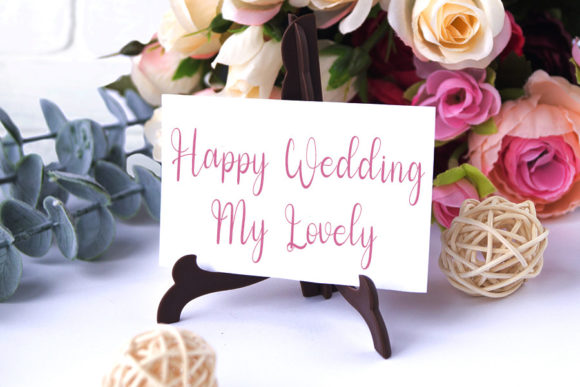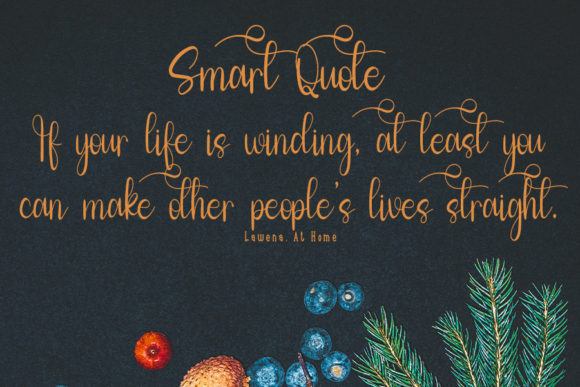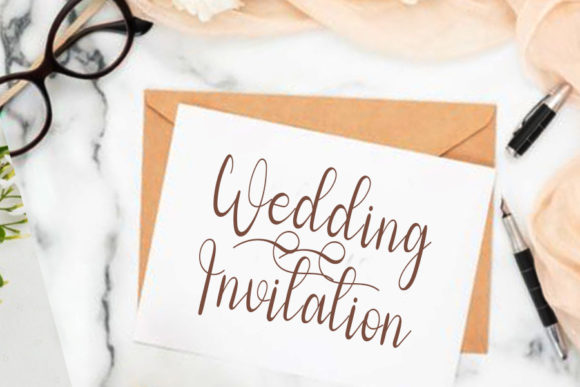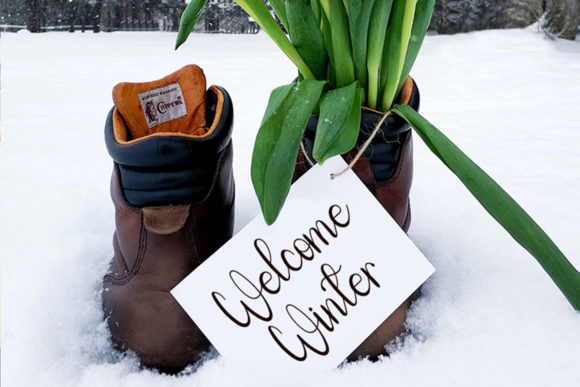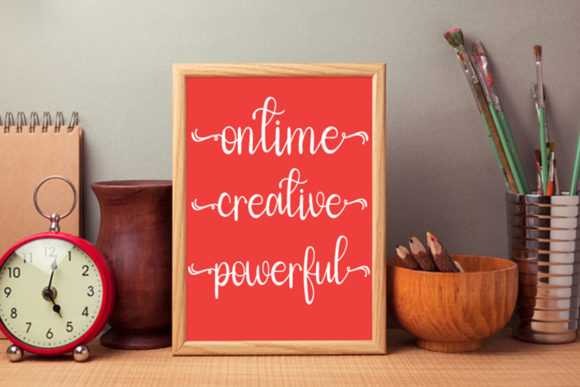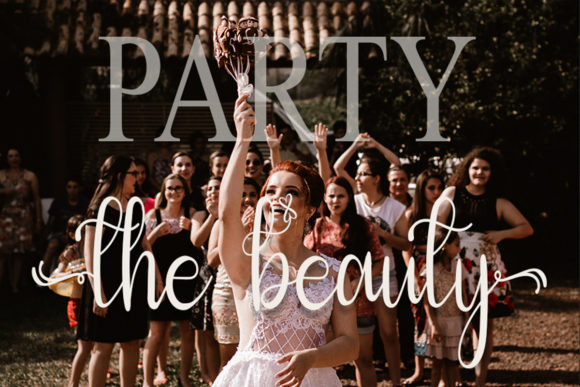
Discover the Elegance of Asyifa Font: A Delicate Calligraphy Masterpiece
Are you a designer or crafter looking for a font that exudes elegance and sophistication? Look no further than Asyifa Font, a delicate and elegant calligraphy font that is sure to capture your heart. With its distinct and well-rounded letters, Asyifa Font is a masterpiece that can elevate your designs to new heights.
The Unique Charm of Asyifa Font
Asyifa Font boasts a unique charm that sets it apart from other calligraphy fonts. Its delicate and elegant strokes are carefully crafted to create a sense of refinement and luxury. The font’s well-rounded letters are designed to be highly legible, making it perfect for use in a variety of design projects, from wedding invitations and branding materials to packaging and digital media.
One of the standout features of Asyifa Font is its incredible versatility. Whether you’re creating a romantic wedding invitation or a bold brand identity, this font can adapt to any style or theme. Its elegant strokes and delicate curves make it perfect for use in a range of design applications, including:
- Wedding and event invitations
- Digital media and social graphics
- Stationery and letterhead
Why Designers and Crafters Love Asyifa Font
So, what makes Asyifa Font a favorite among designers and crafters? Here are just a few reasons:
- Elegance and sophistication: Asyifa Font adds a touch of luxury and refinement to any design project.
- Flexibility: The font’s versatility makes it perfect for use in a wide range of design applications.
- Easy to read: Asyifa Font’s well-rounded letters are highly legible, even at small sizes.
- Unique and distinctive: Asyifa Font’s delicate strokes and curves make it stand out from other calligraphy fonts.
Tips for Using Asyifa Font in Your Designs
To get the most out of Asyifa Font, here are a few tips to keep in mind:
- Pair it with bold fonts: Asyifa Font’s delicate strokes are perfect for pairing with bold, chunky fonts to create visual interest.
- Experiment with colors: Asyifa Font looks stunning in a range of colors, from soft pastels to rich jewel tones.
- Use it for headlines and titles: Asyifa Font’s elegance and sophistication make it perfect for use in headlines and titles.
- Add some flair with swashes: Asyifa Font comes with a range of swashes and flourishes to add a touch of whimsy to your designs.
In conclusion, Asyifa Font is a delicate and elegant calligraphy font that is sure to capture your heart. With its distinct and well-rounded letters, incredibly versatile style, and ease of use, it’s the perfect choice for designers and crafters looking to add a touch of sophistication to their designs. Whether you’re creating wedding invitations, branding materials, or digital media, Asyifa Font is a masterpiece that can help you create spectacular designs that stand out from the crowd.